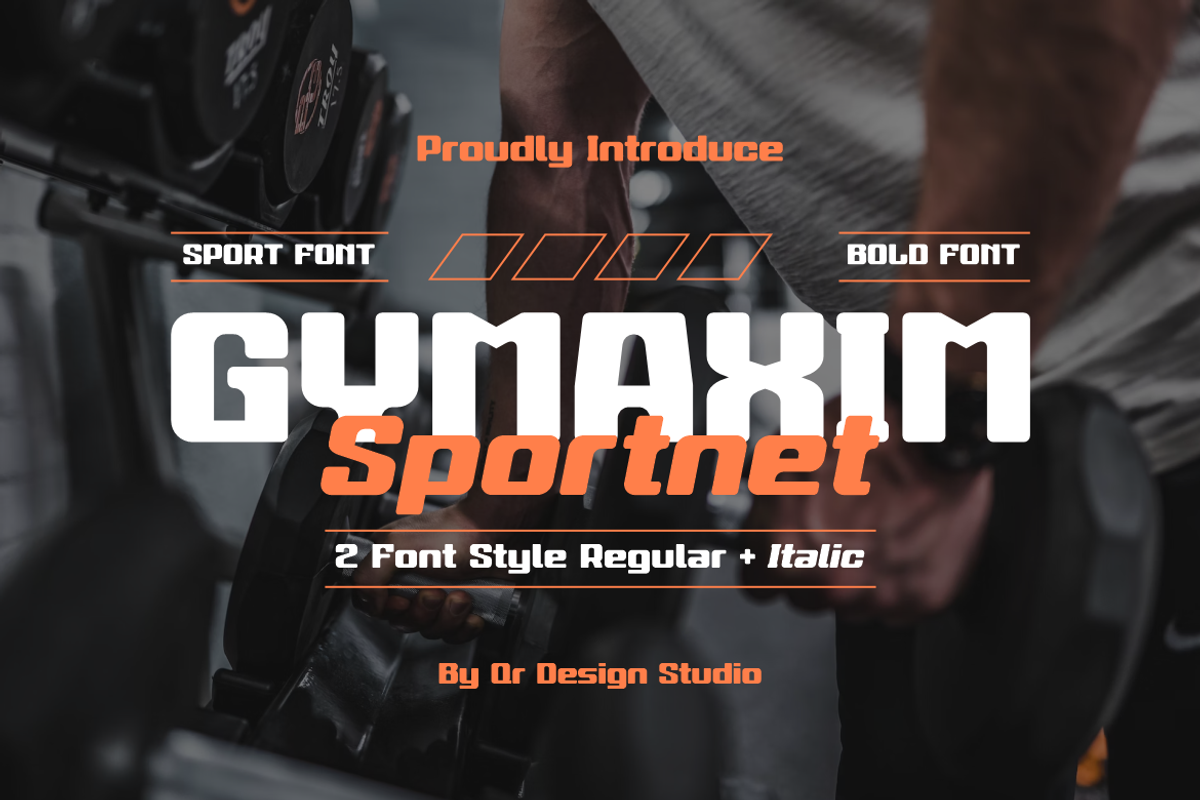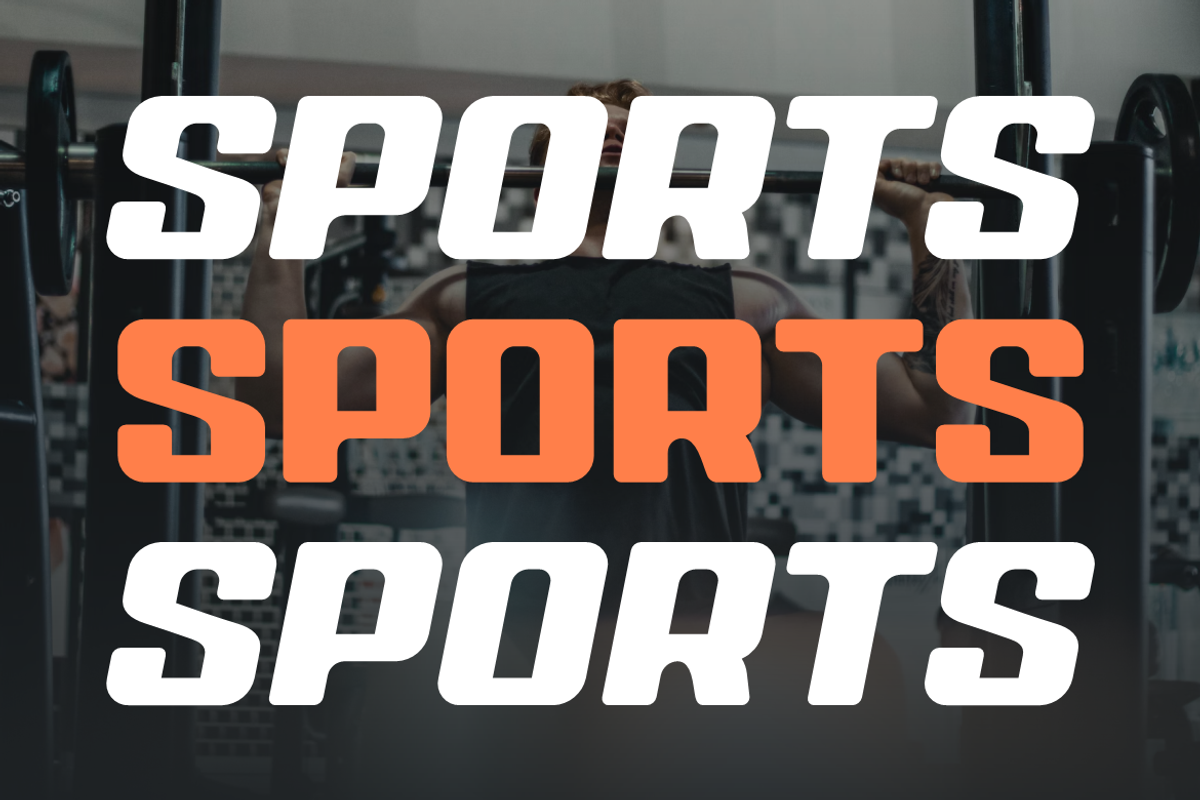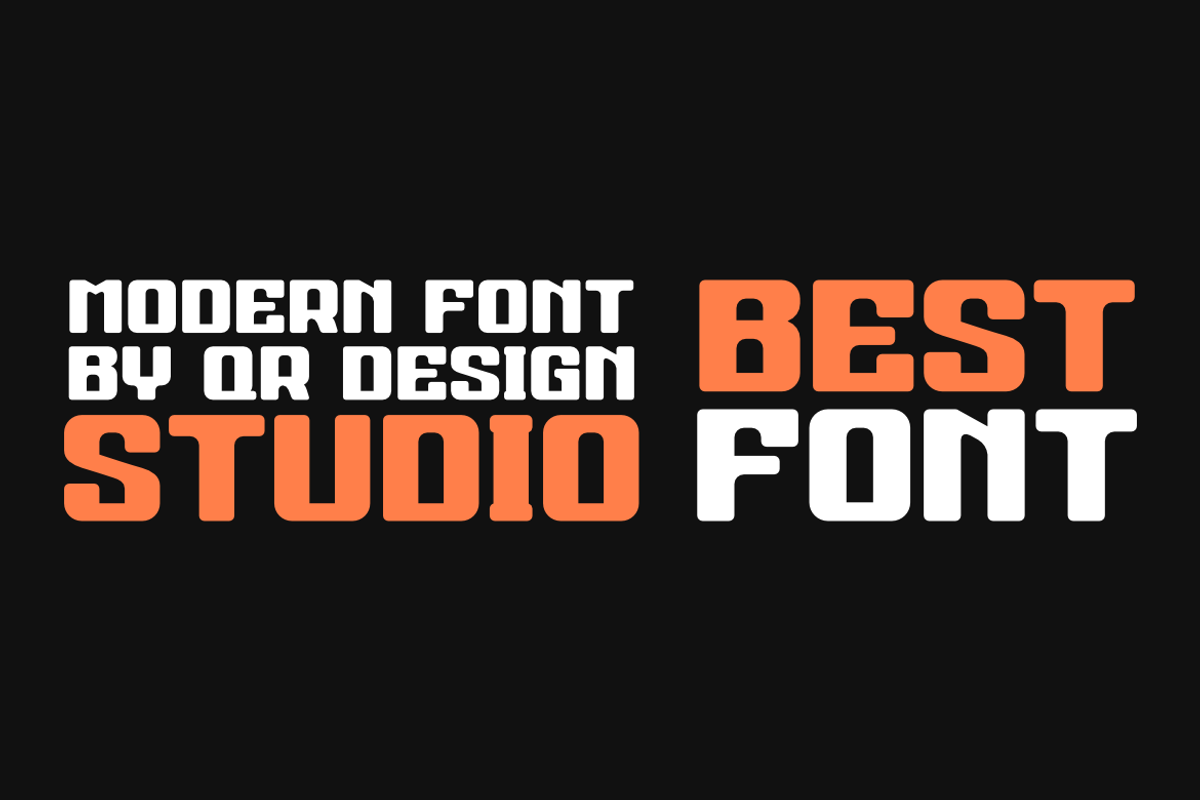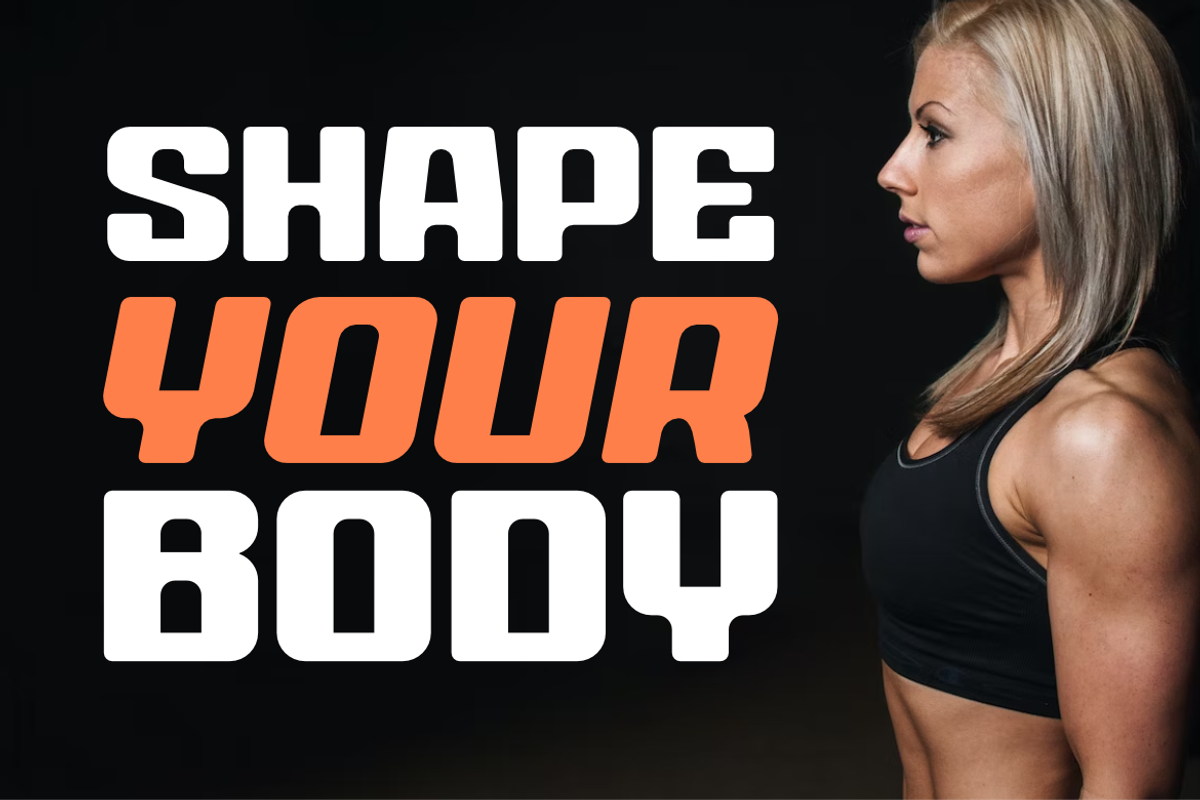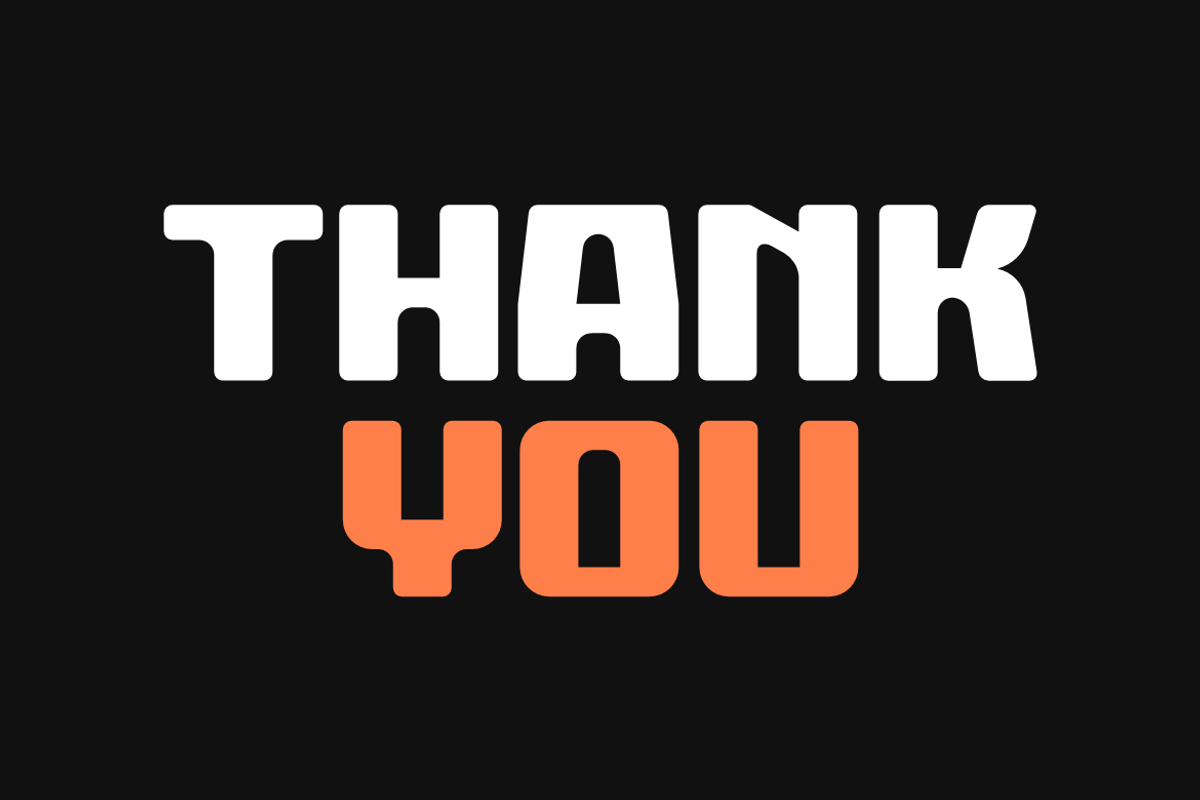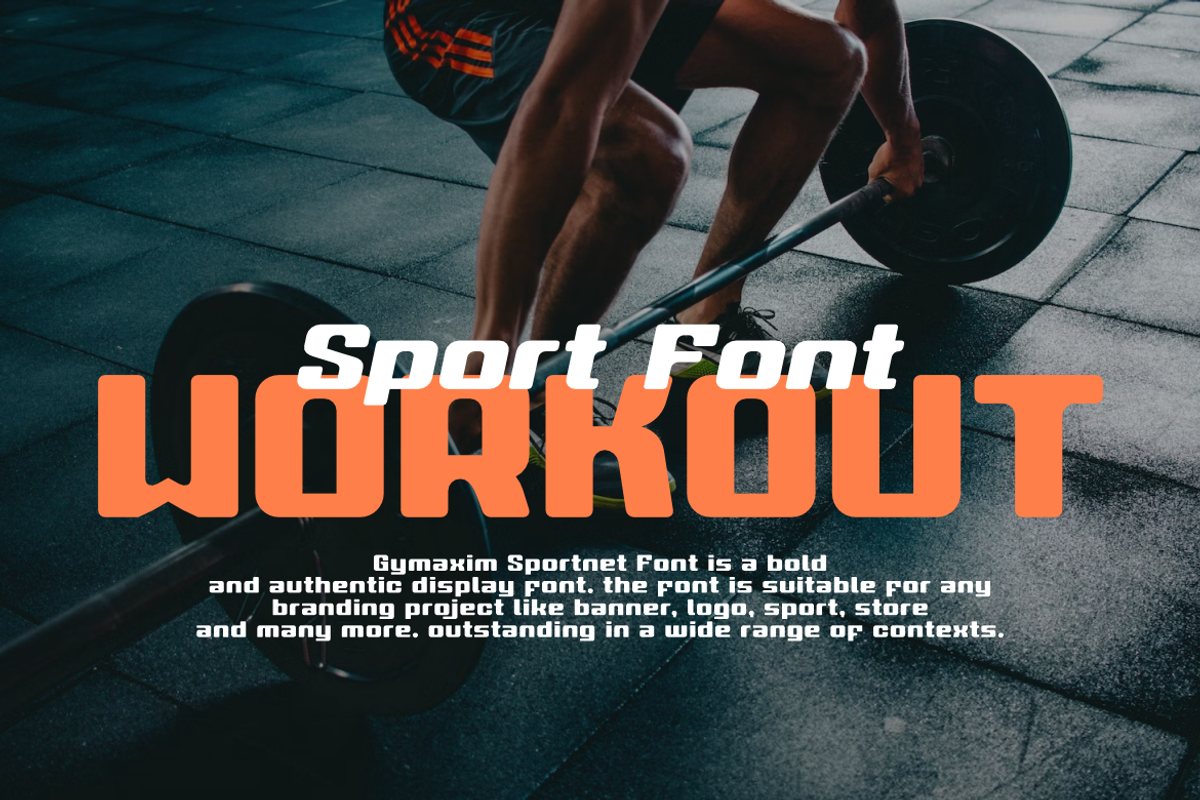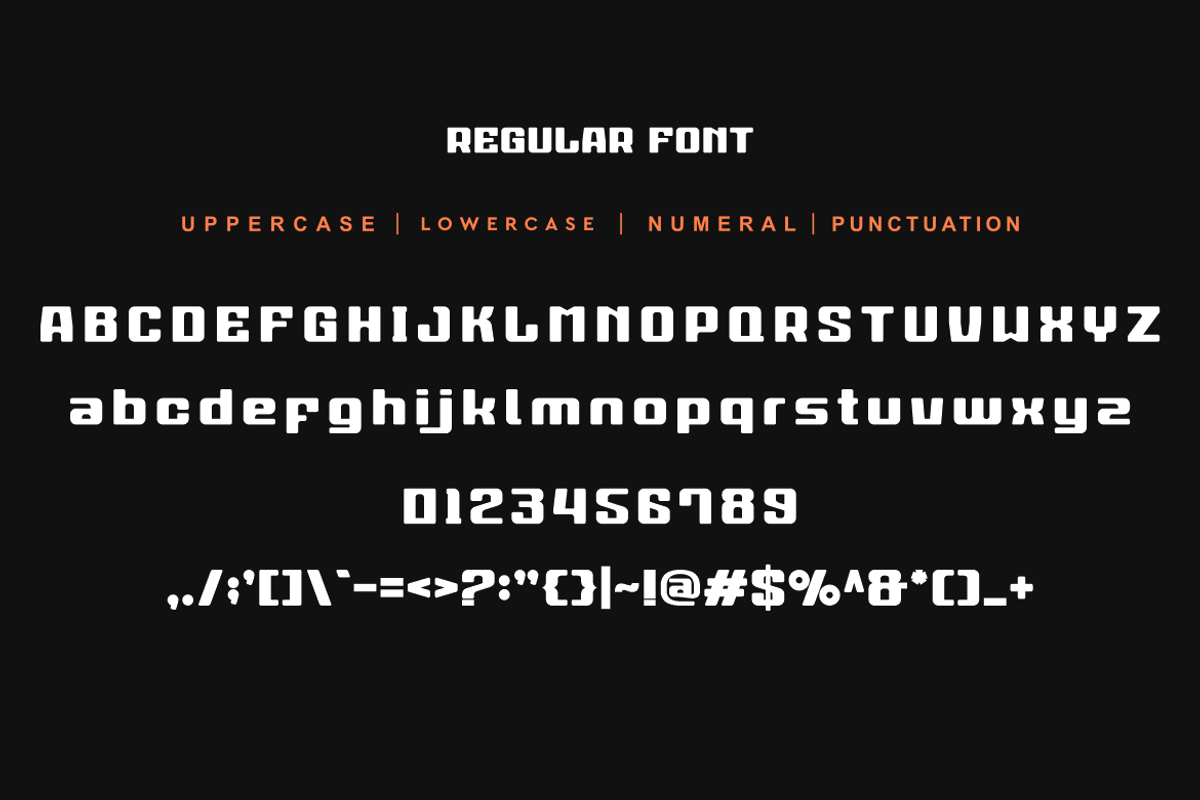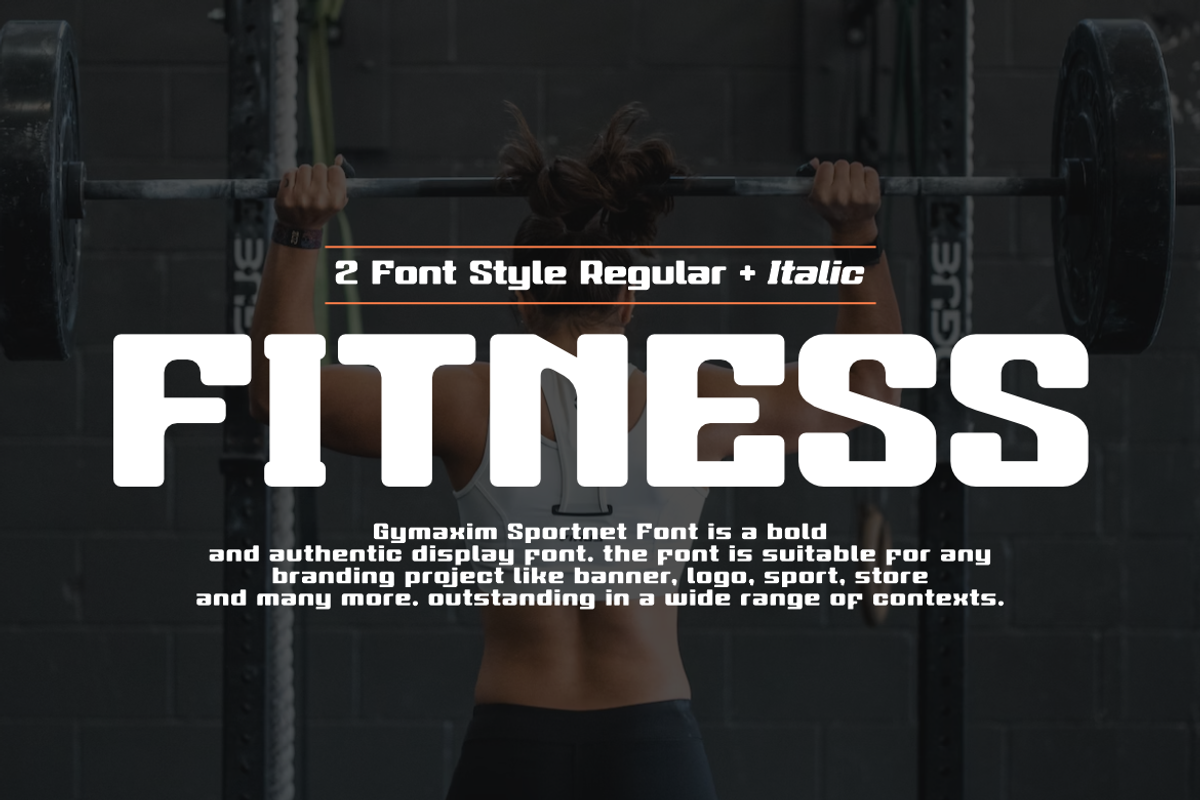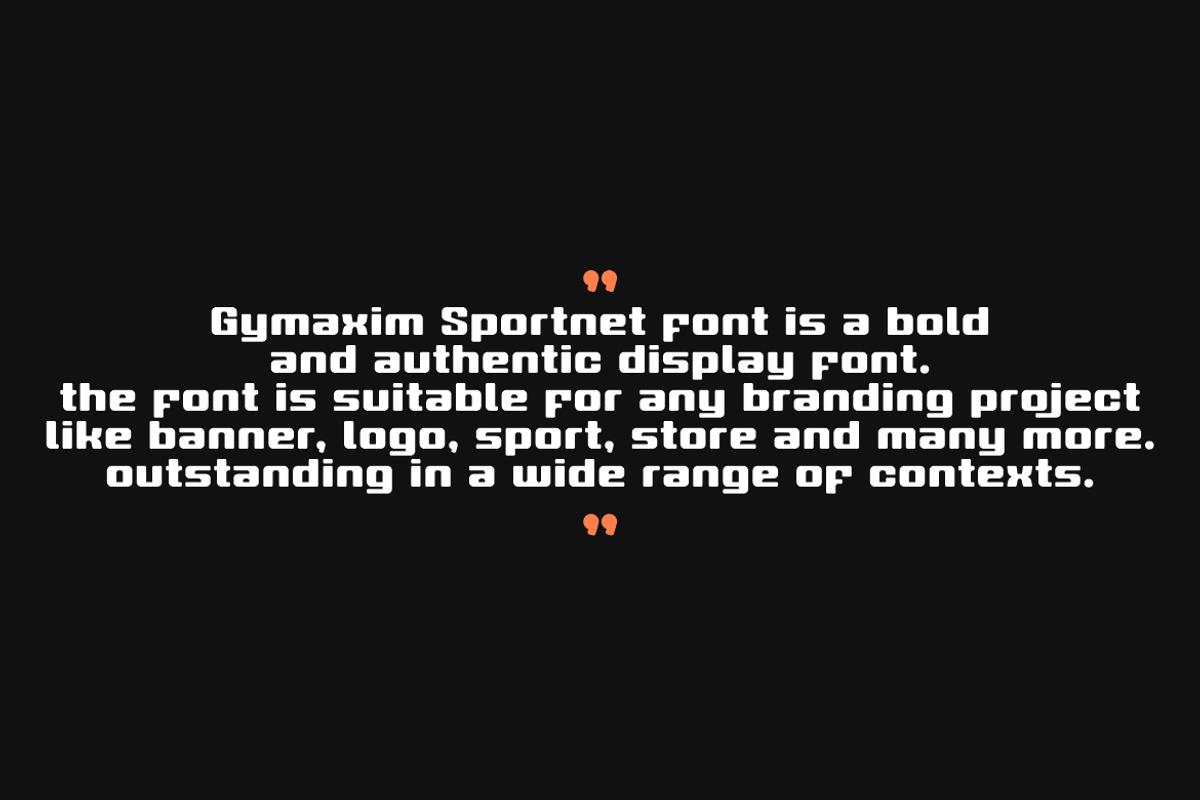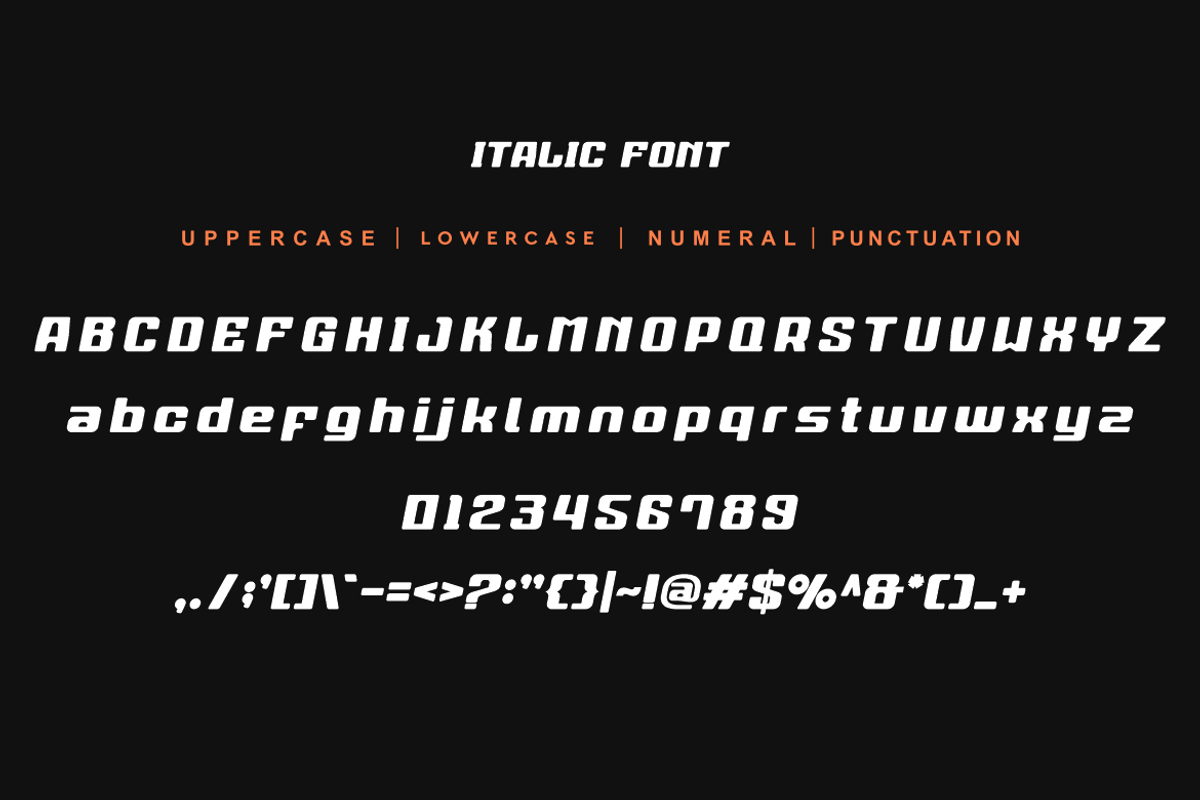
Gymaxim Sportnet
Gymaxim Sportnet Font is a bold and authentic display font. The font is suitable for any branding project like logo, sport, food, poster, and many more. Outstanding in a wide range of contexts.